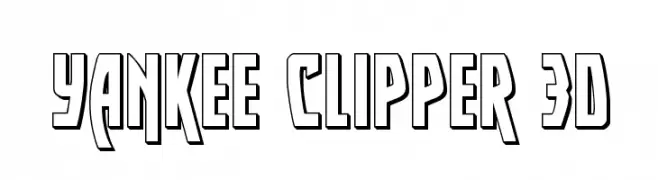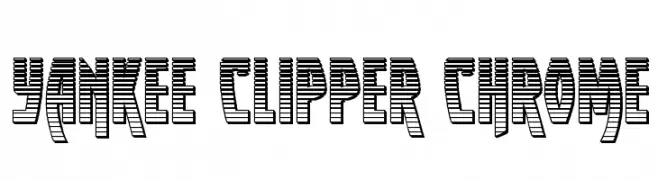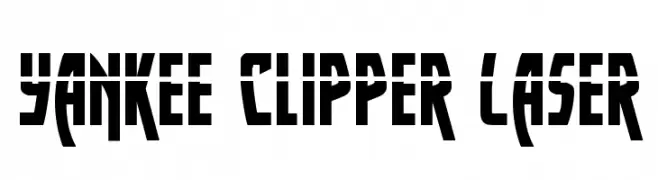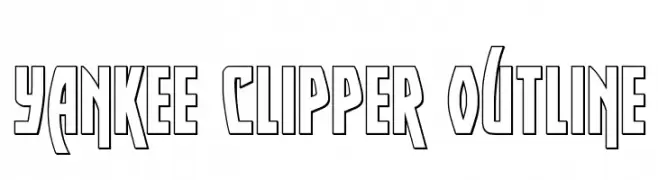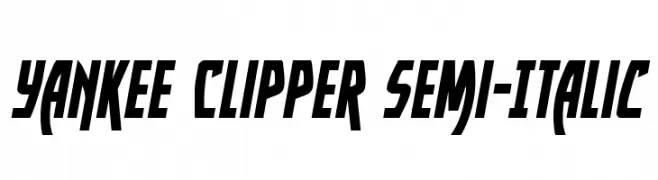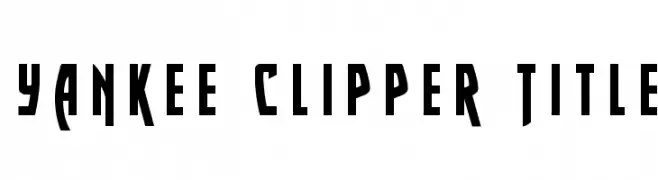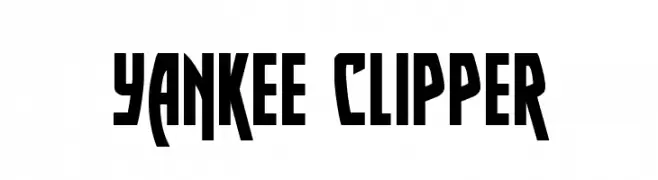
A modern, geometric font with circular lines and sharp angles.
A bold, geometric font with a futuristic and industrial design.
A bold, outlined font with a geometric, modern style.
A bold, 3D outlined font with a strong, angular design.
A bold, angular font with a dynamic, geometric style.
A bold, geometric stencil font with a futuristic and industrial style.
A bold, angular font with sharp geometric shapes.
A bold, semi-italic font with sharp angles and a dynamic, modern style.
A bold, italicized font with a gradient effect, conveying speed and modernity.
A bold, striped, 3D-effect font with a futuristic style.